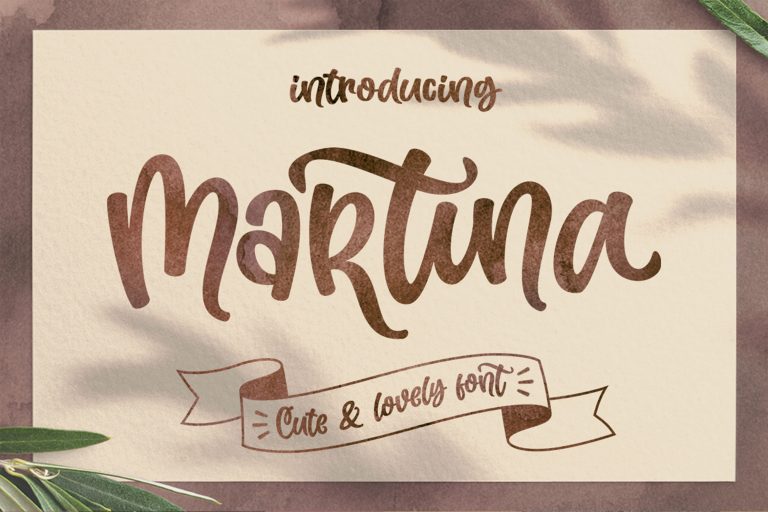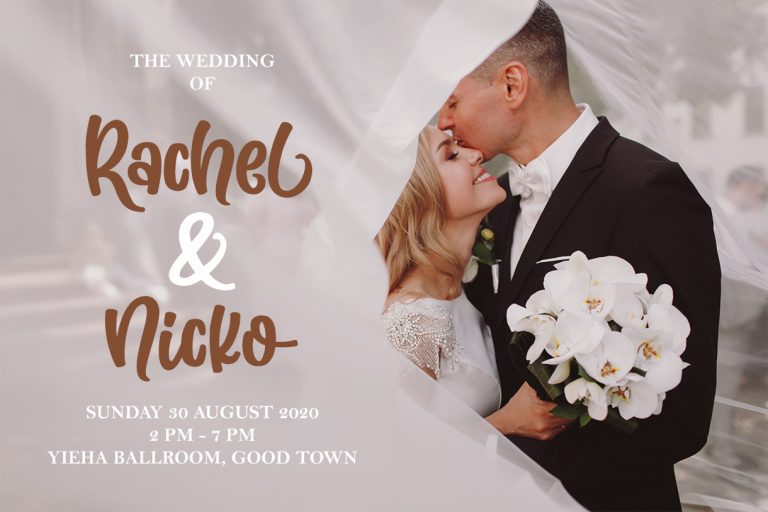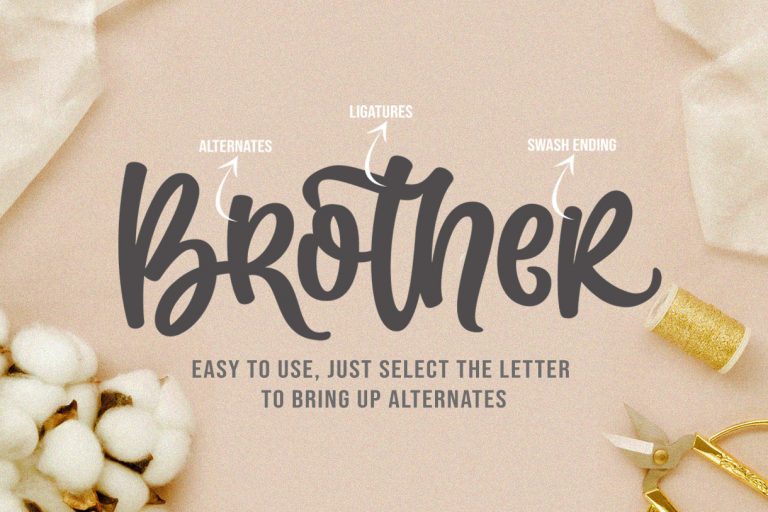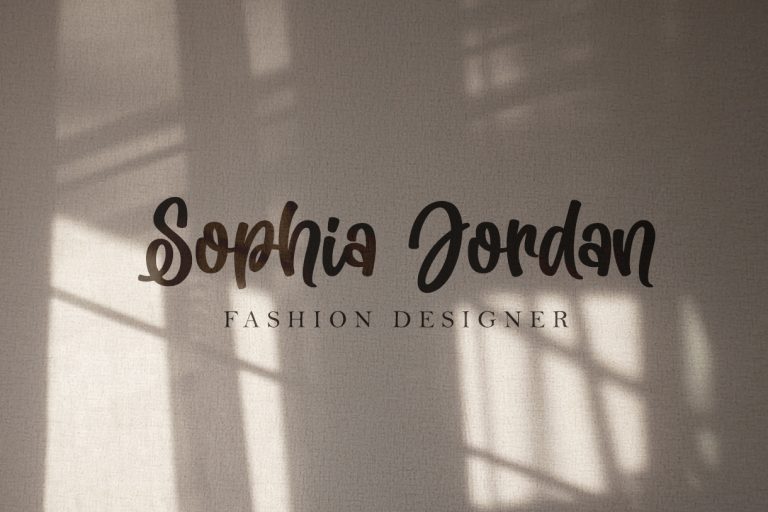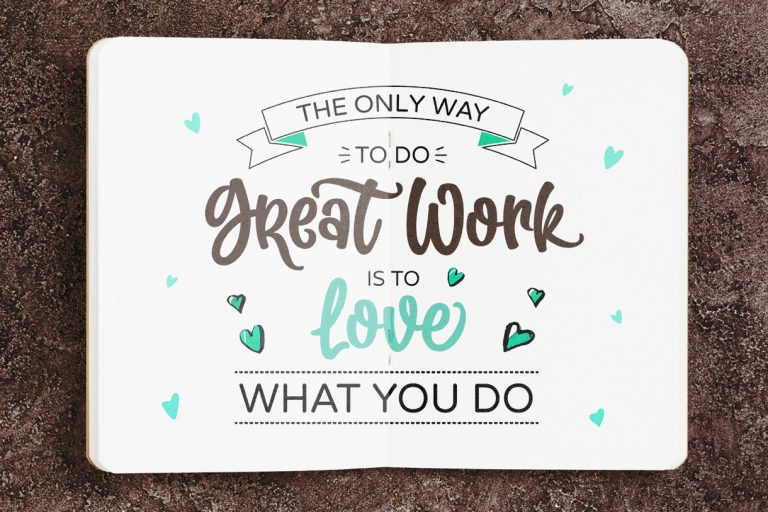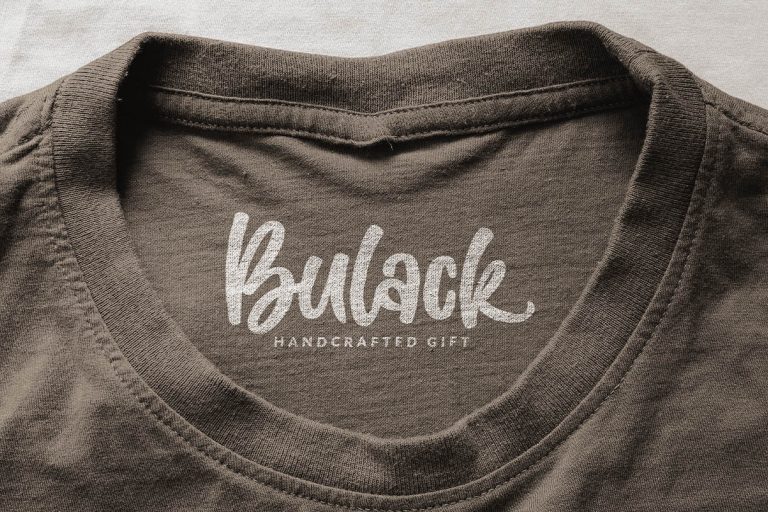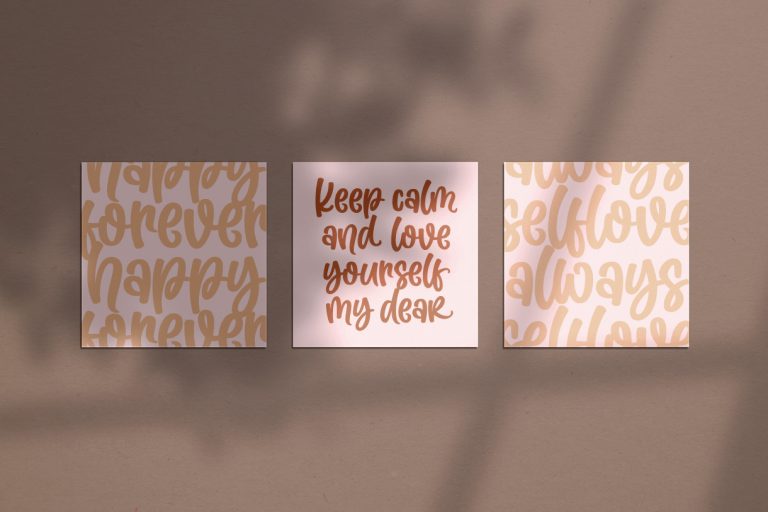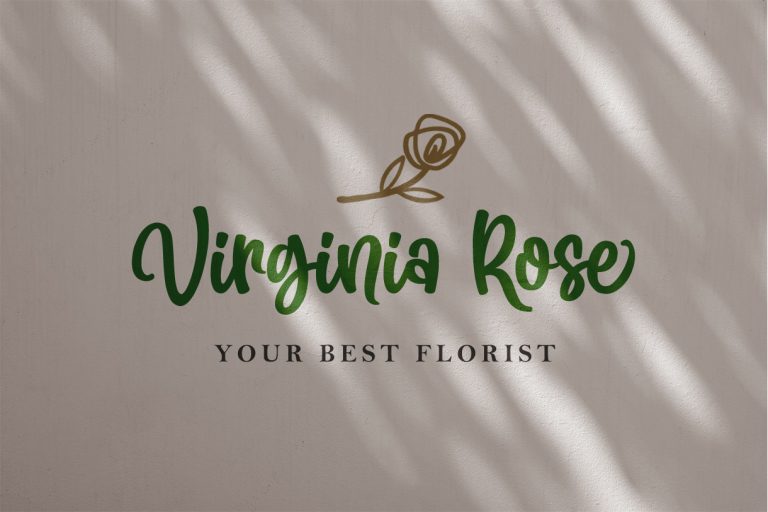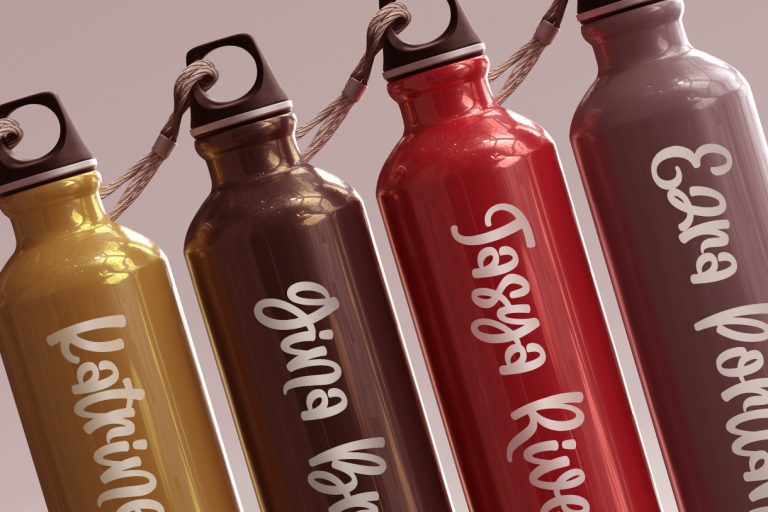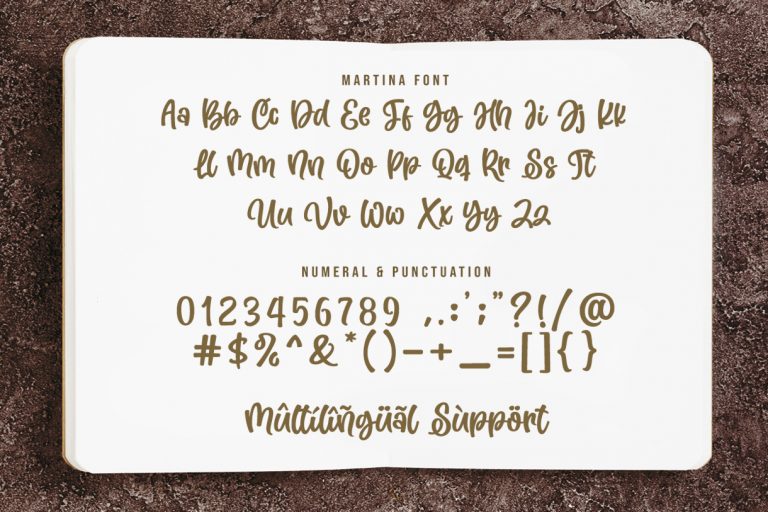
Martina
Martina is a Cute and Lovely font, this font come with extra alternate, ligature and swash ending. perfect for your awesome project, such as : logos, invitations, stationery, wedding designs, social media posts, advertisements, product packaging, product designs, labels, photography, watermarks, special events and much more !